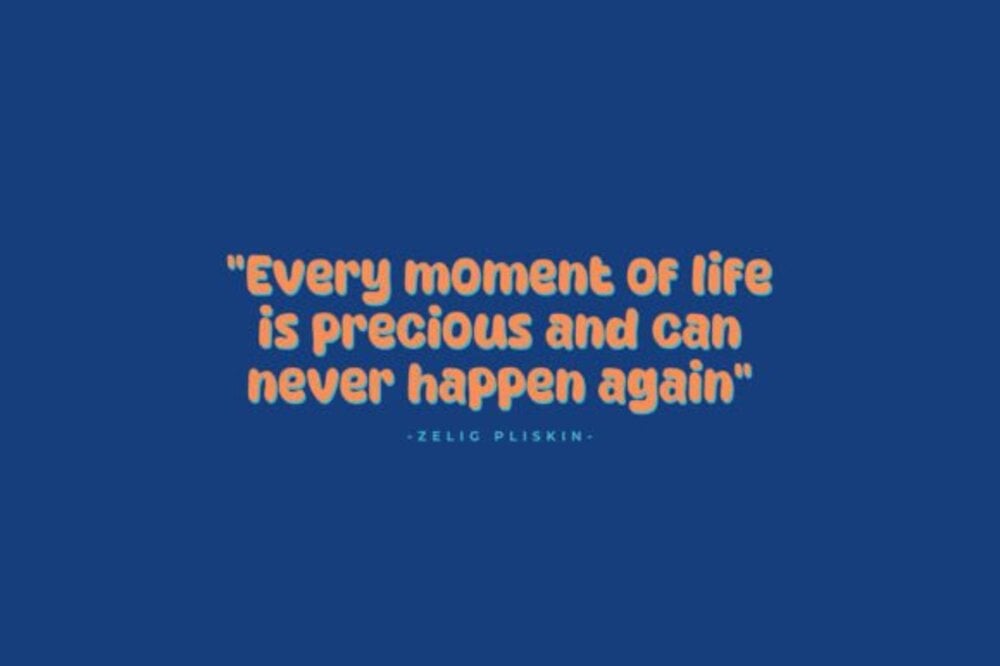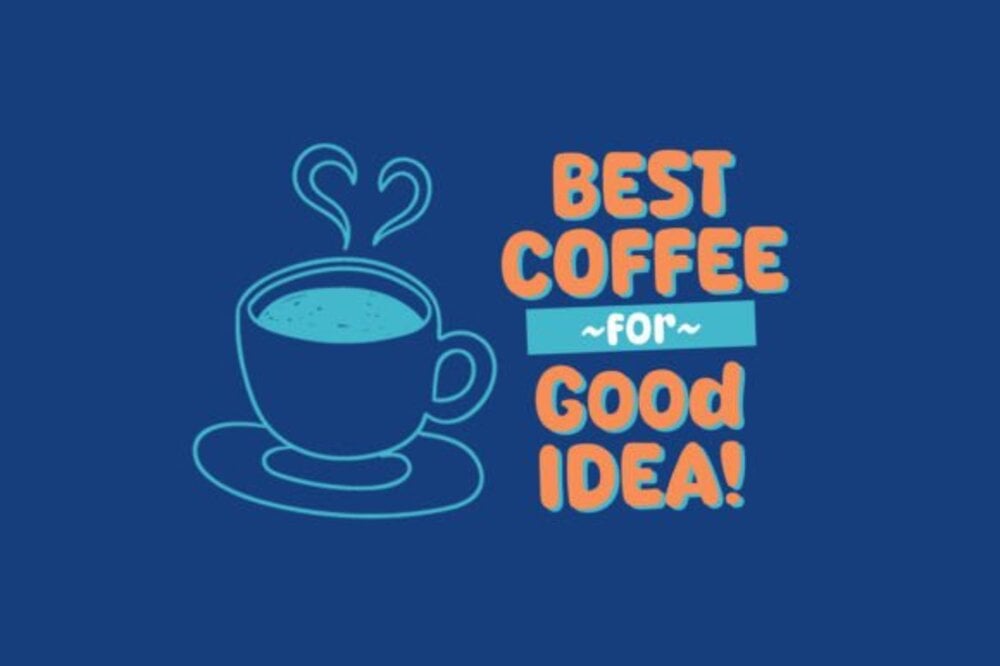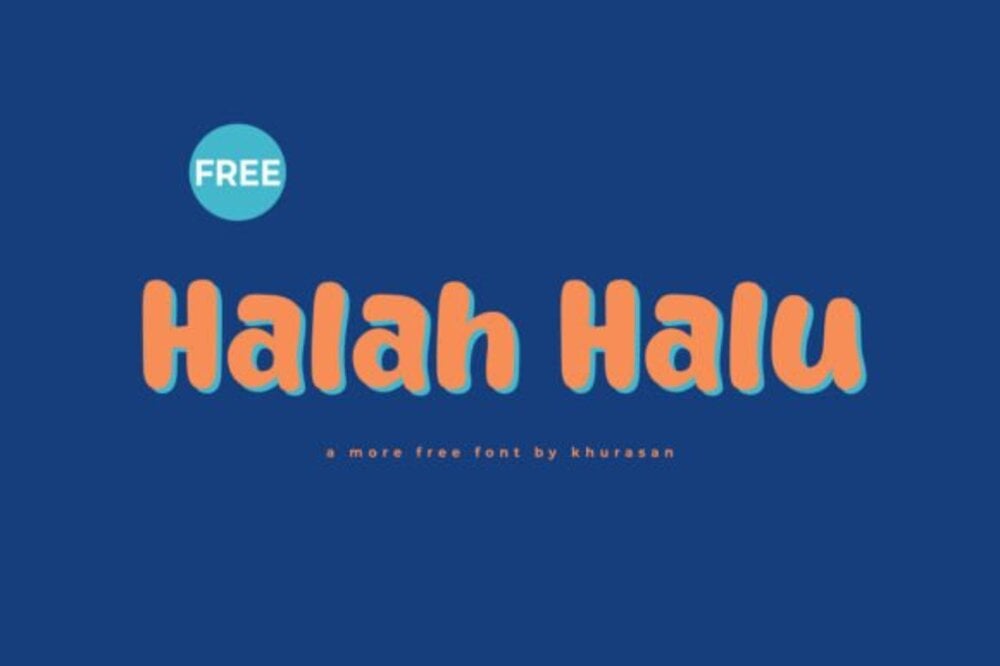
Halah Halu Font
Halah Halu is a modern, elegant typeface that exudes sophistication and creative flair. Its clean lines and subtle curves strike a perfect balance between minimalism and artistic expression. Designed for versatility, it seamlessly elevates branding, editorial, and digital projects. With a touch of boldness, Halah Halu adds a timeless yet contemporary edge, making every design captivating and unforgettable.